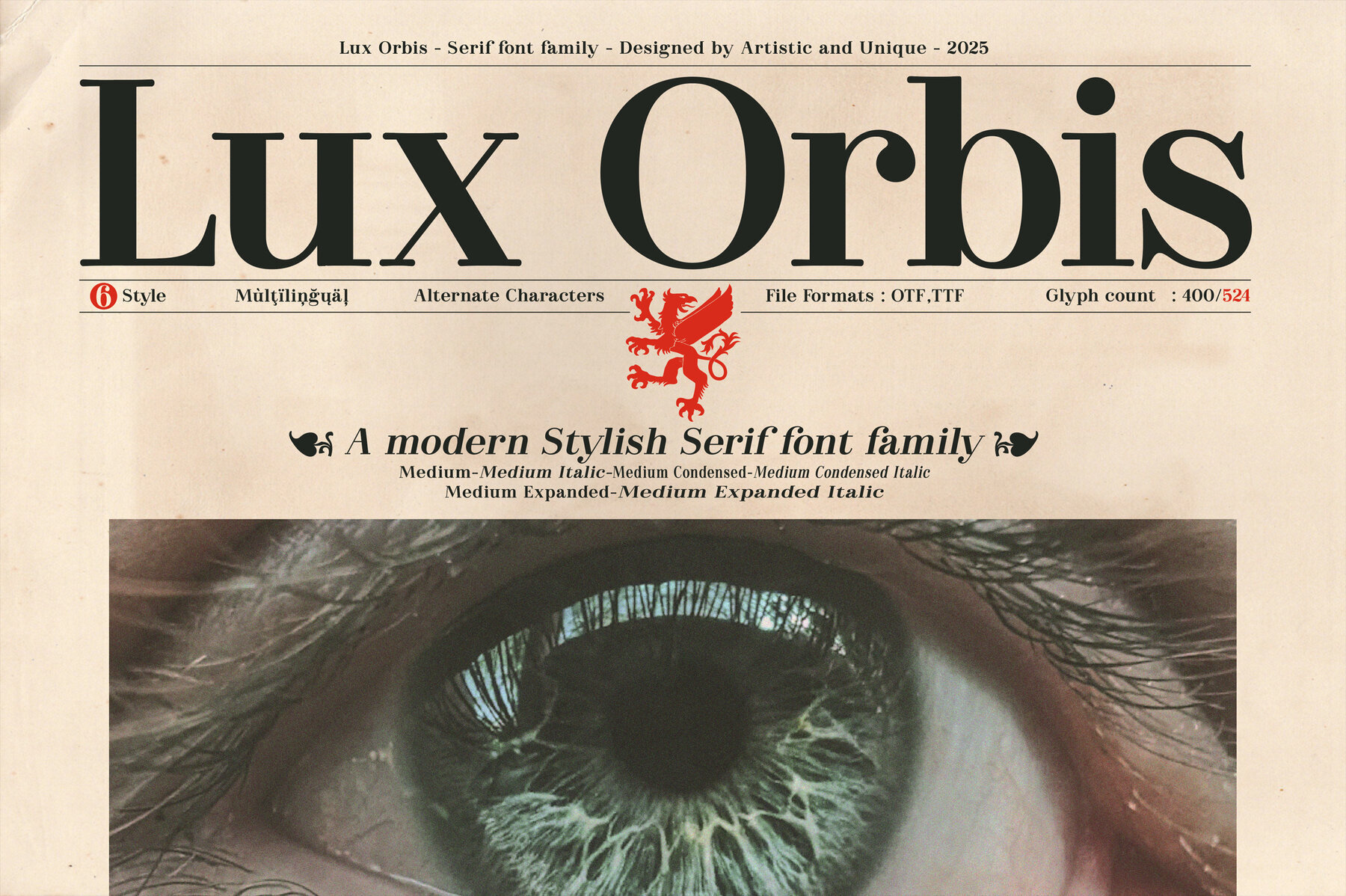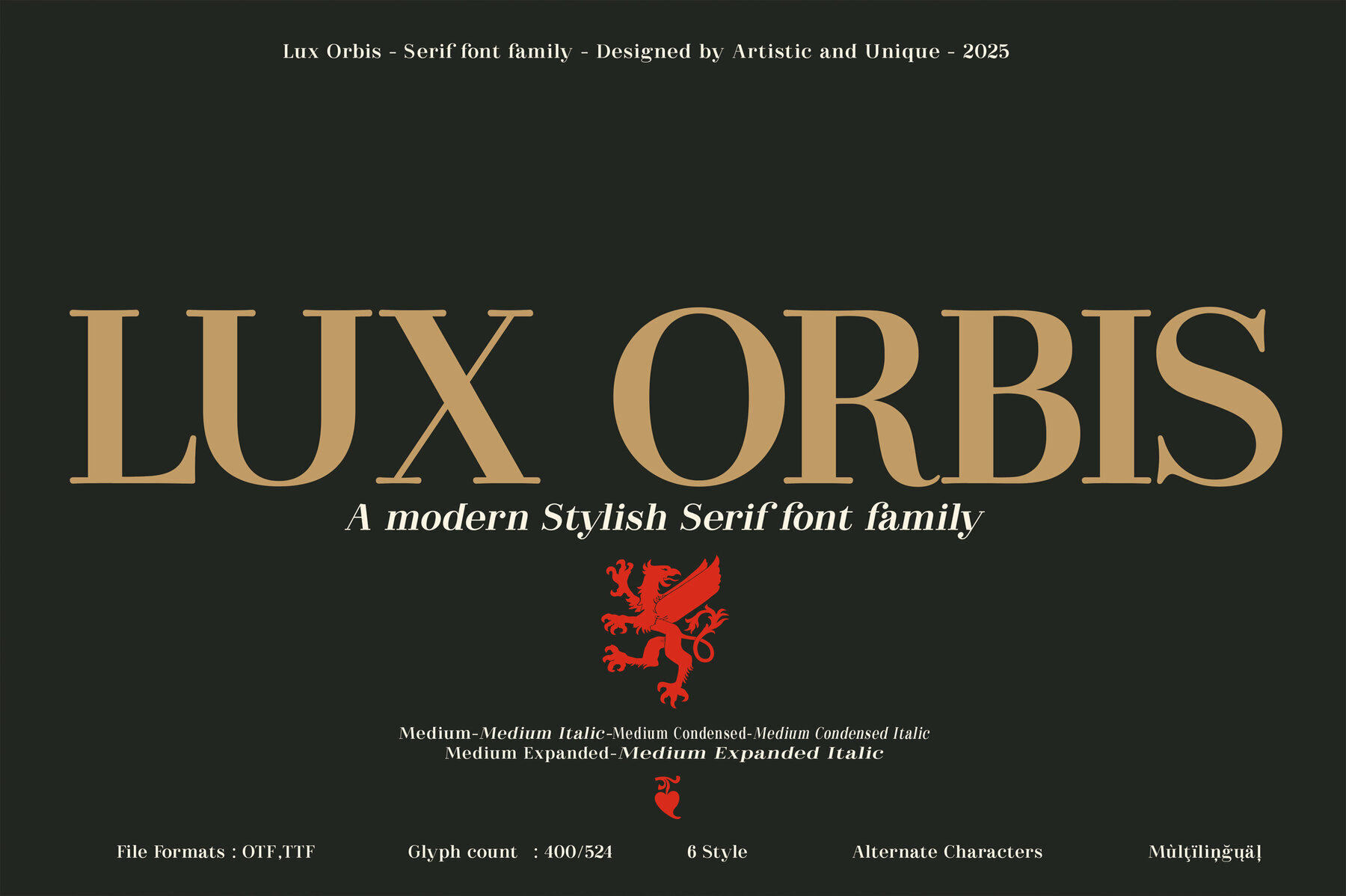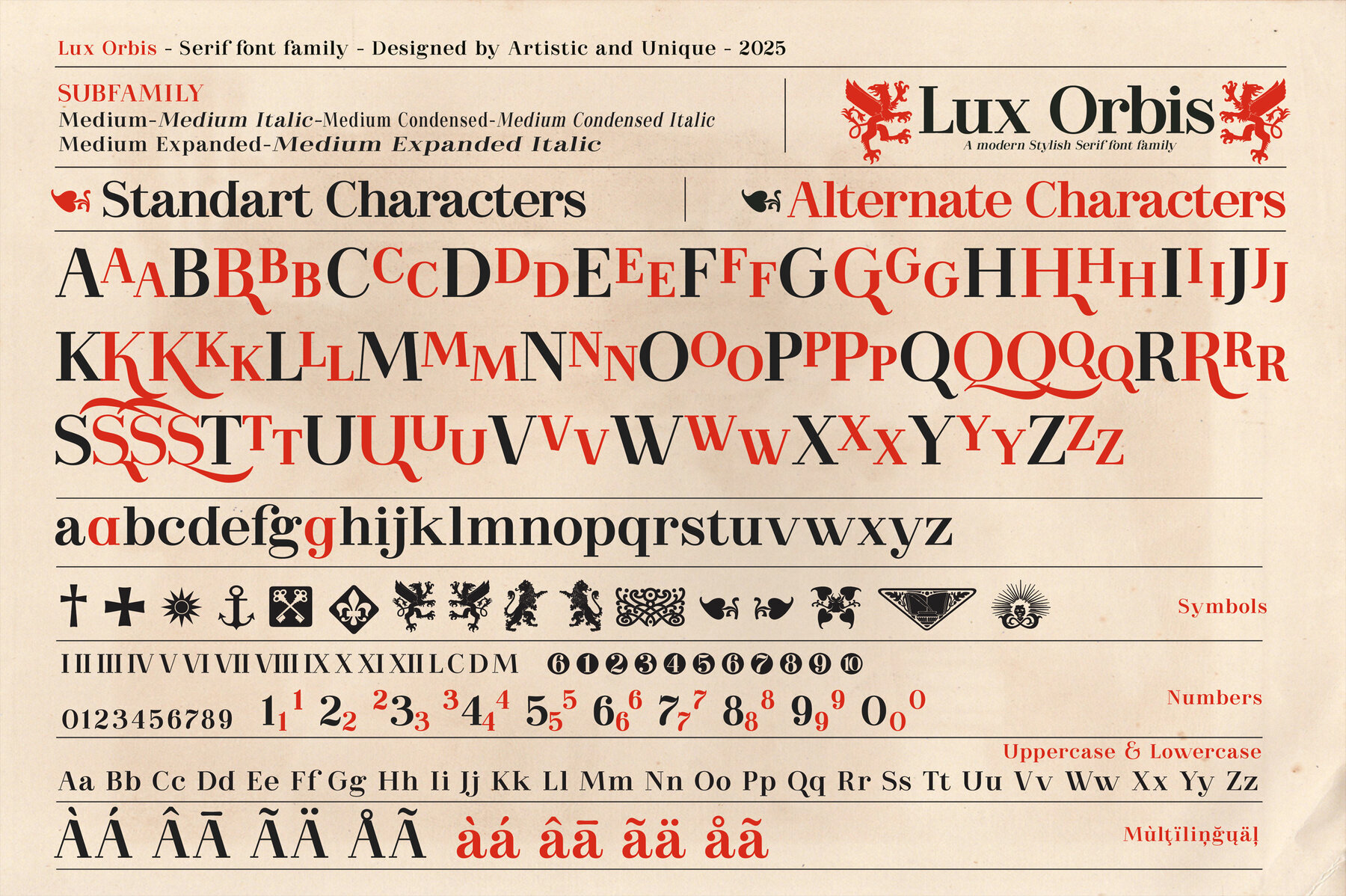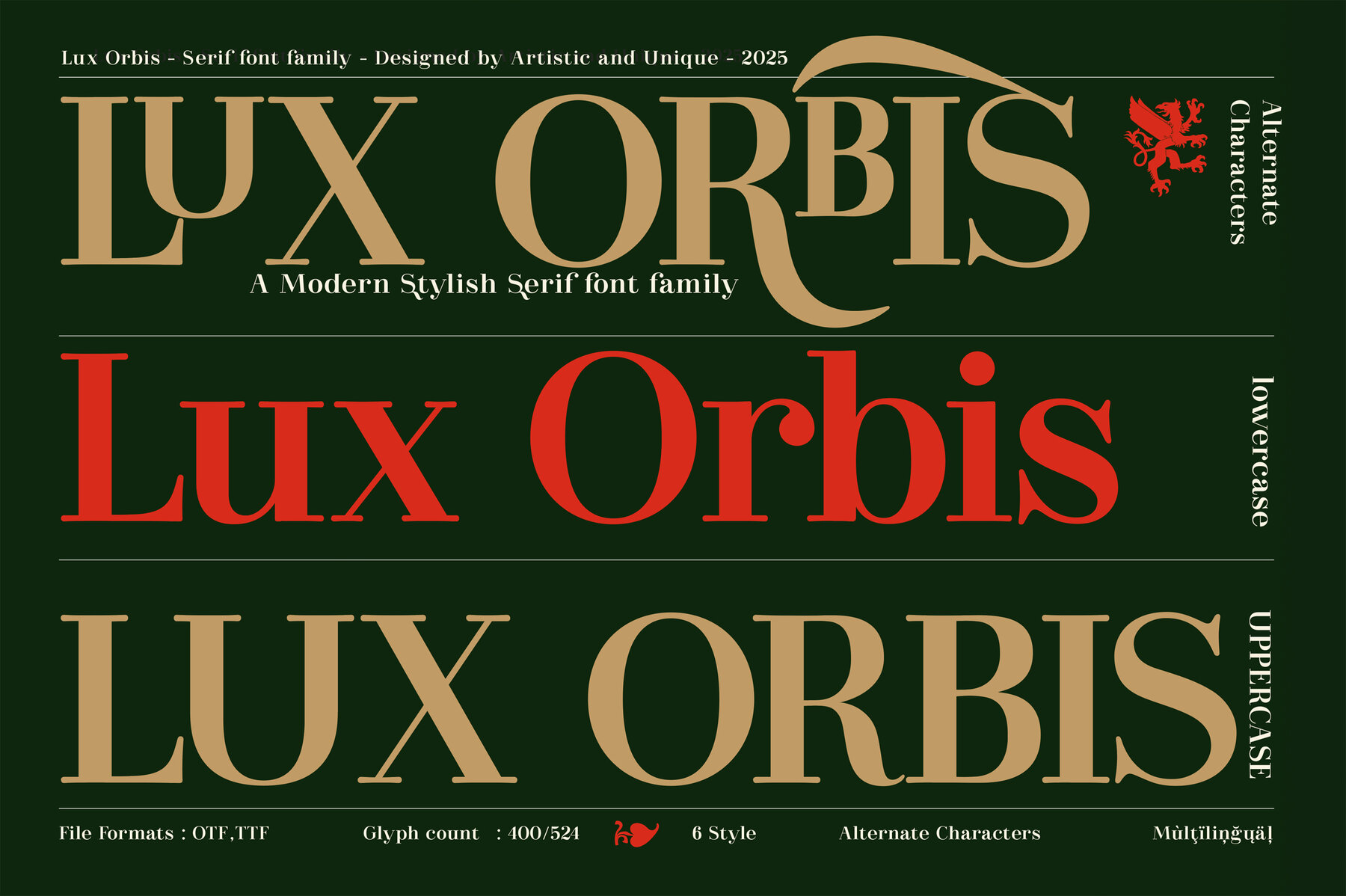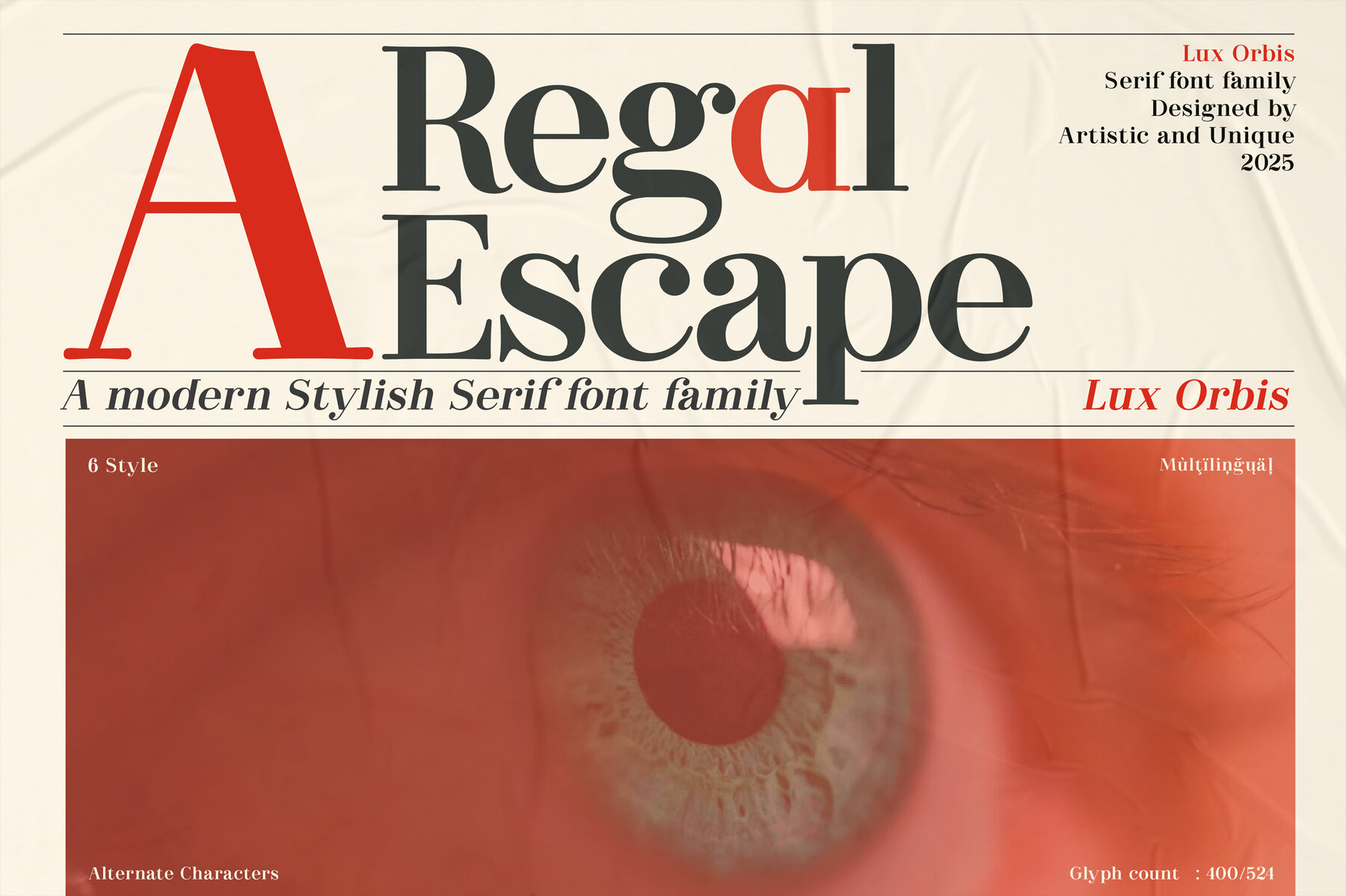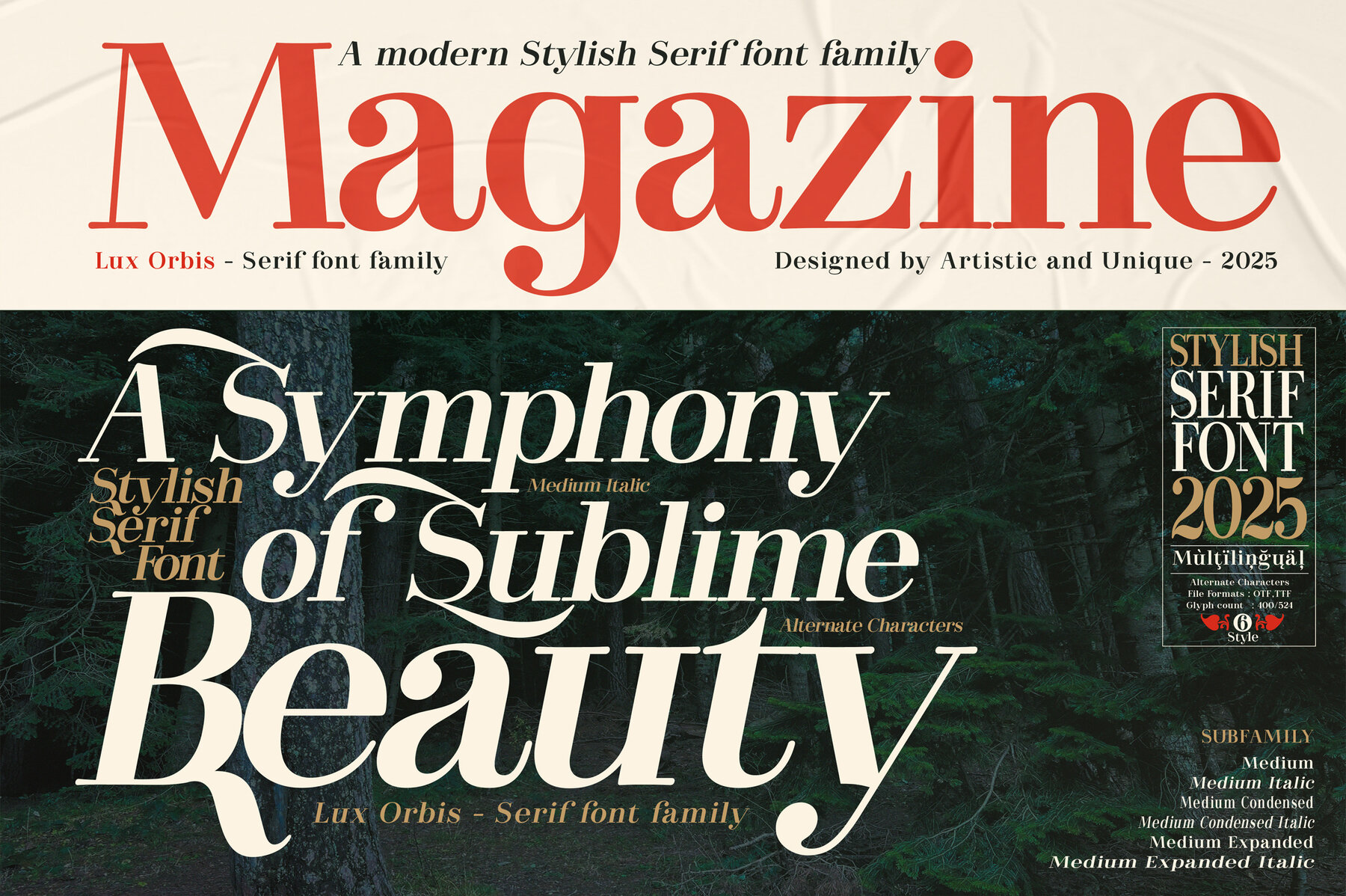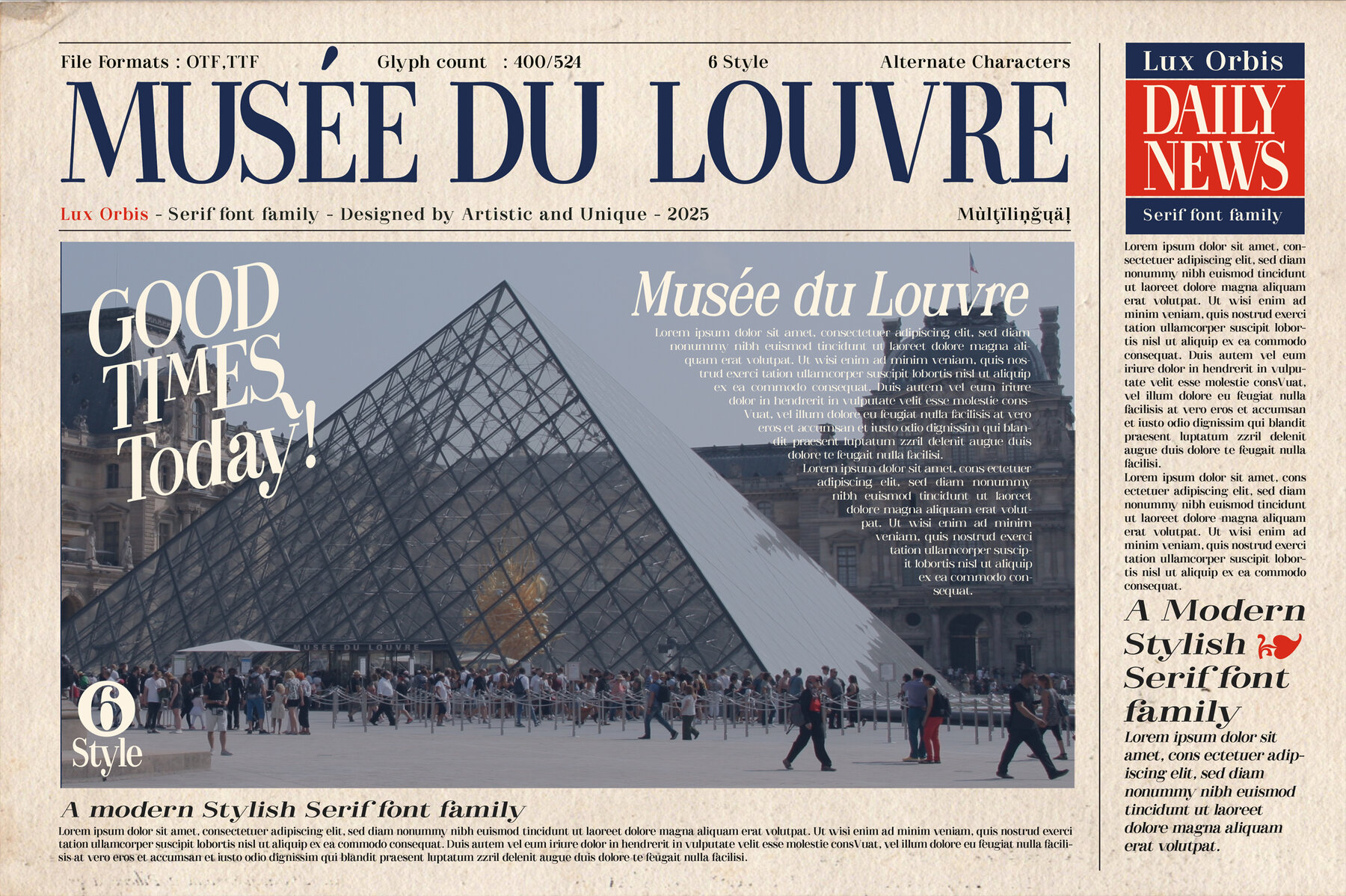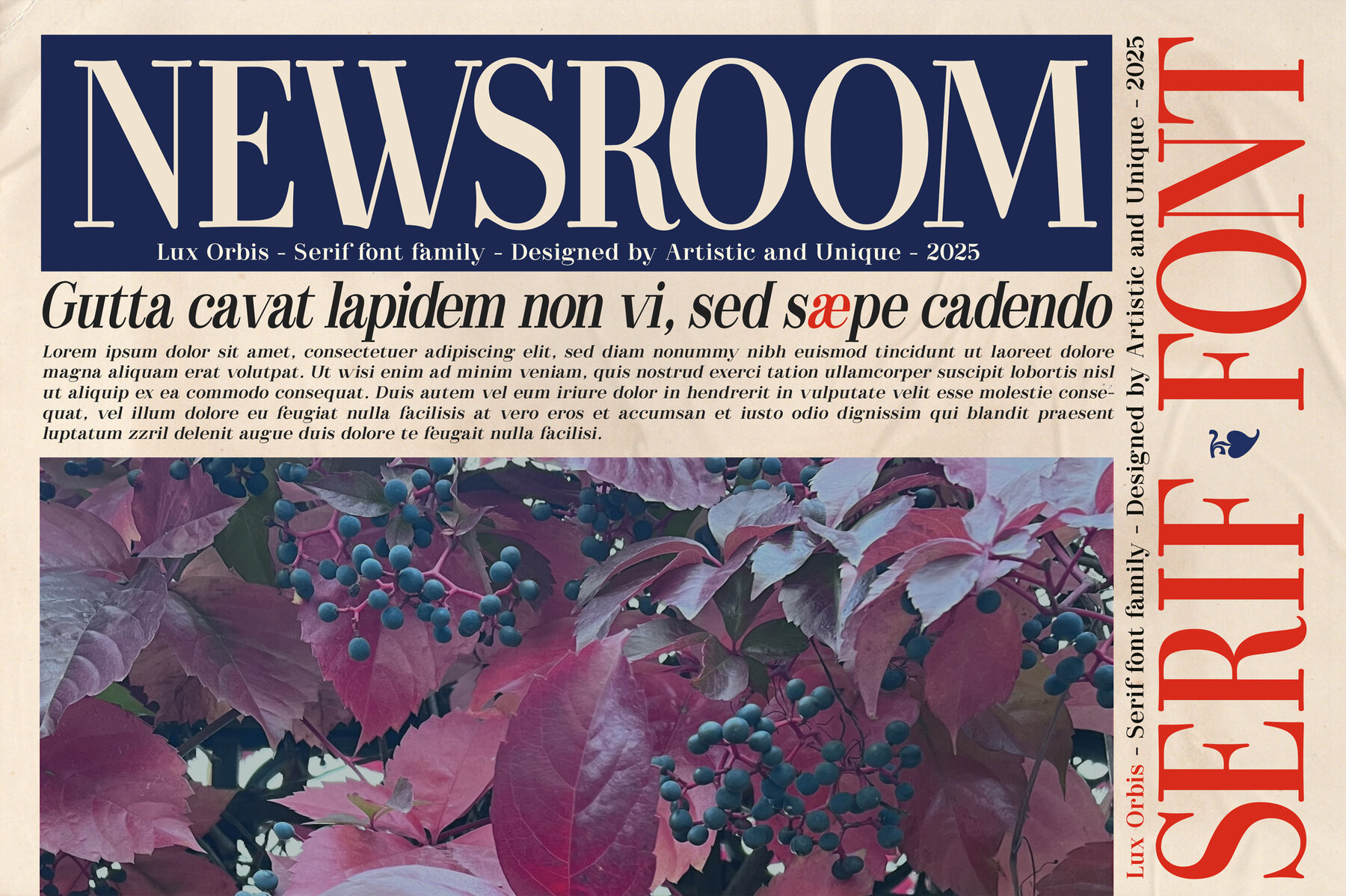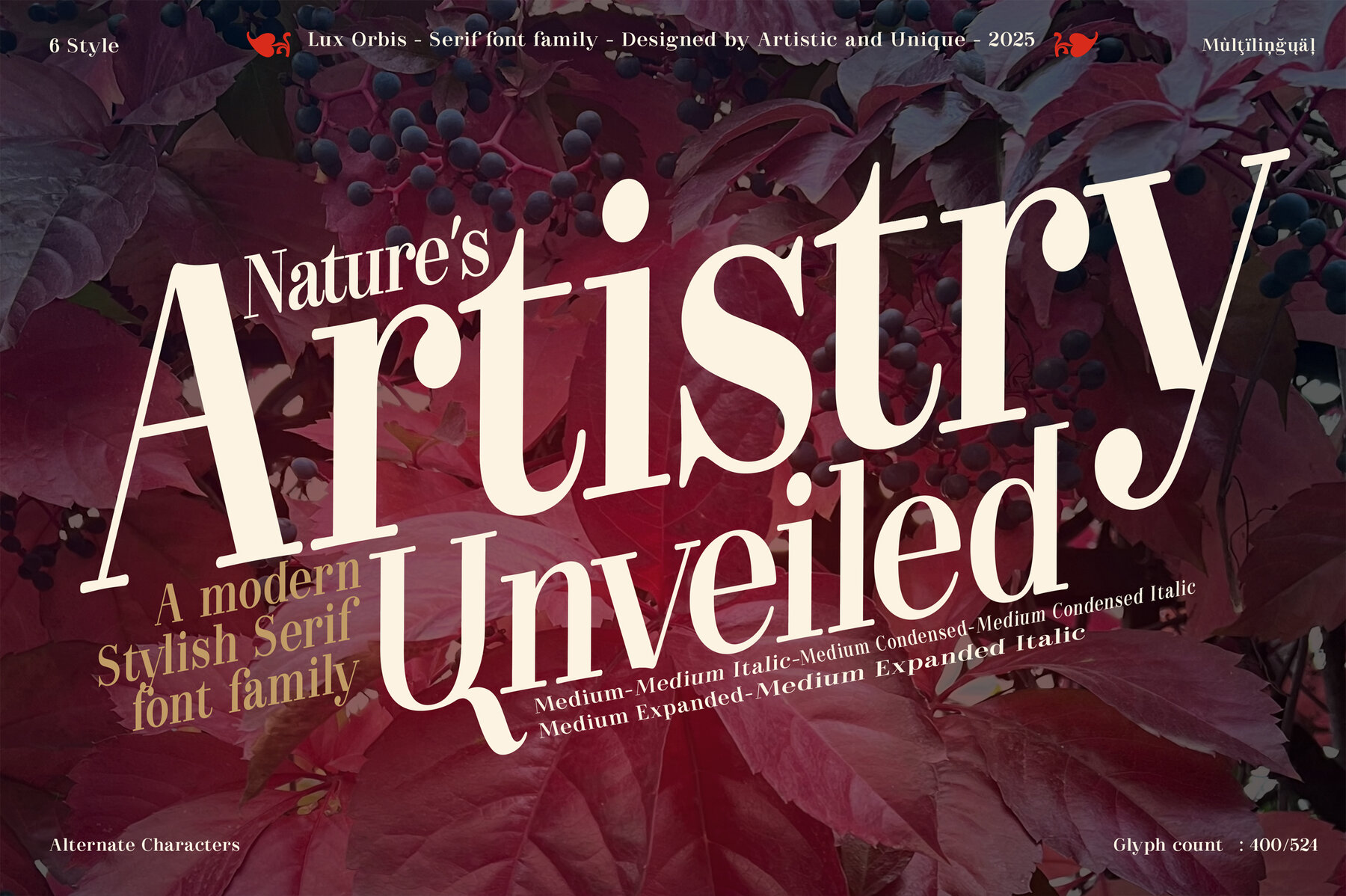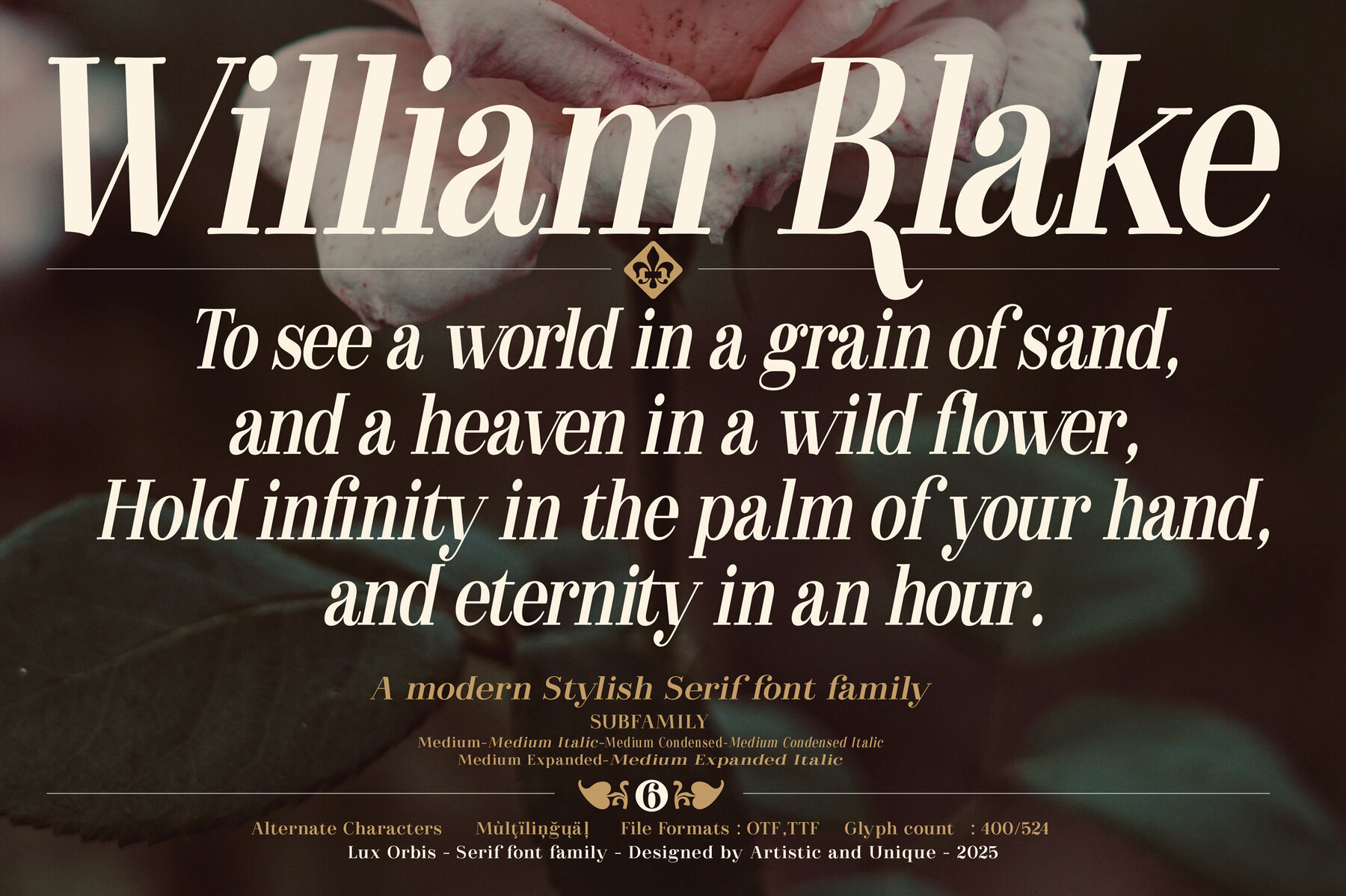
Lux Orbis Font
Lux Orbis Medium
Lux Orbis Medium Condensed
Lux Orbis Medium Condensed Italic
Lux Orbis Medium Expanded
Lux Orbis Medium Expanded Italic
Lux Orbis Medium Italic
Embrace the timeless charm of Lux Orbis, a serif font family inspired by the distinguished styles of the 1700s and 1800s. This elegant typeface is crafted to enhance modern design projects with its subtle yet impactful nuances. The graceful curves of Lux Orbis add sophistication, while providing flexibility through varying contrast levels—perfect for both grand headline statements and refined body text. Ideal for branding, luxurious packaging, and editorial design, Lux Orbis offers stylish and decorative possibilities. Its versatile and elegant structure ensures it fits seamlessly into a wide range of projects, delivering a powerful impact. Choose Lux Orbis and discover how it elevates your creative endeavors with aesthetic grace.Lux Orbis: A Classic Serif Font with Modern Nuance